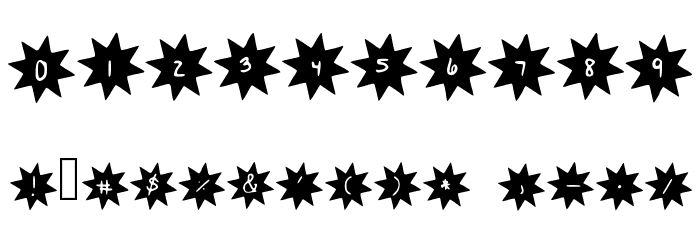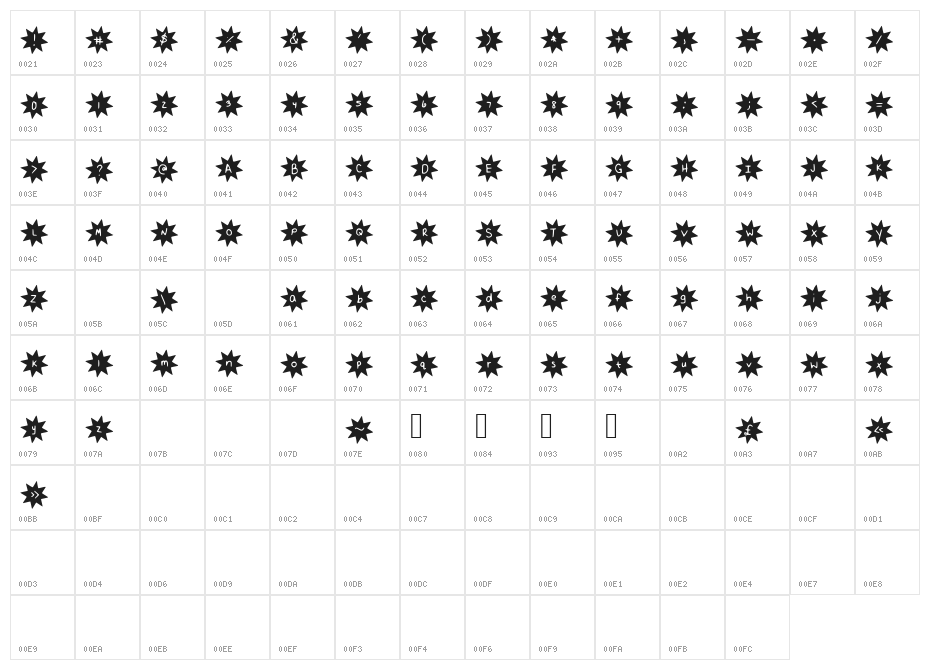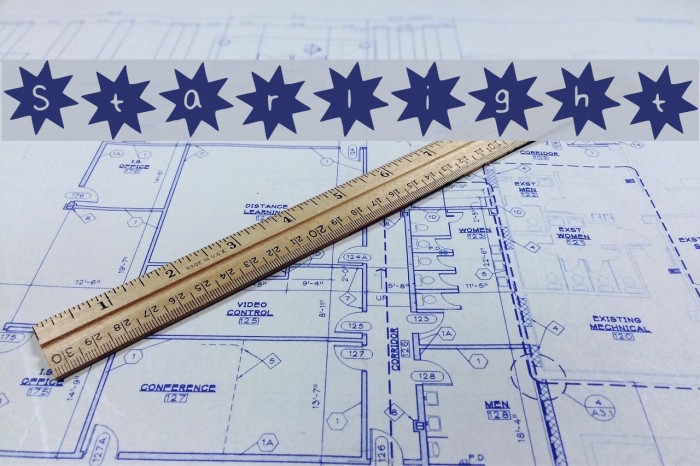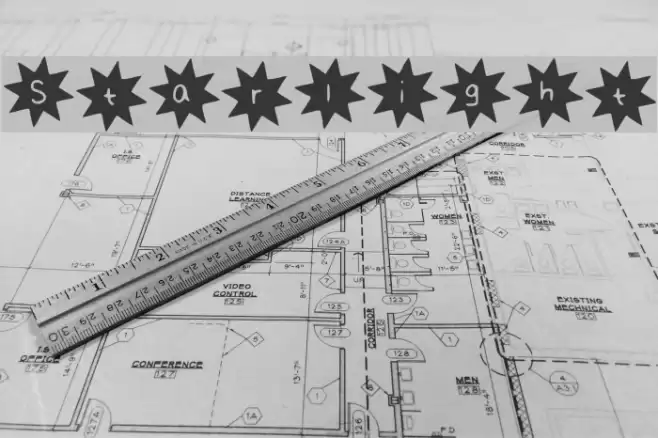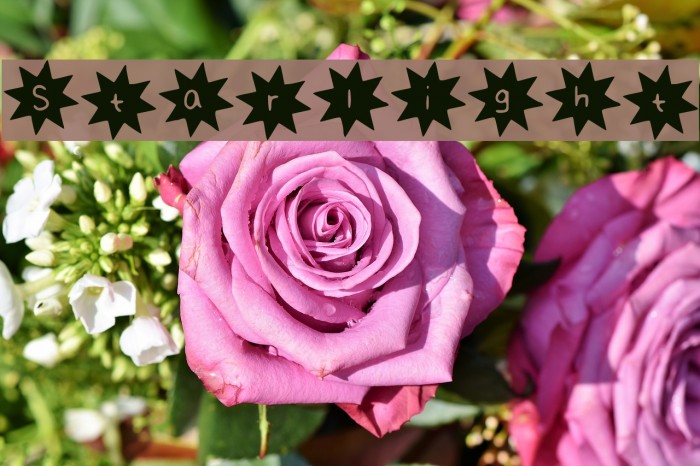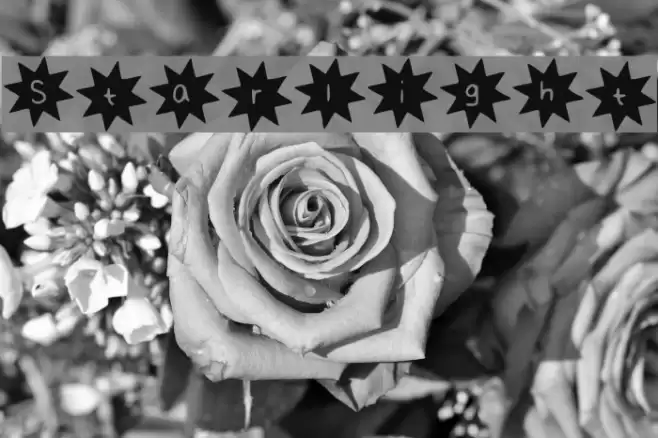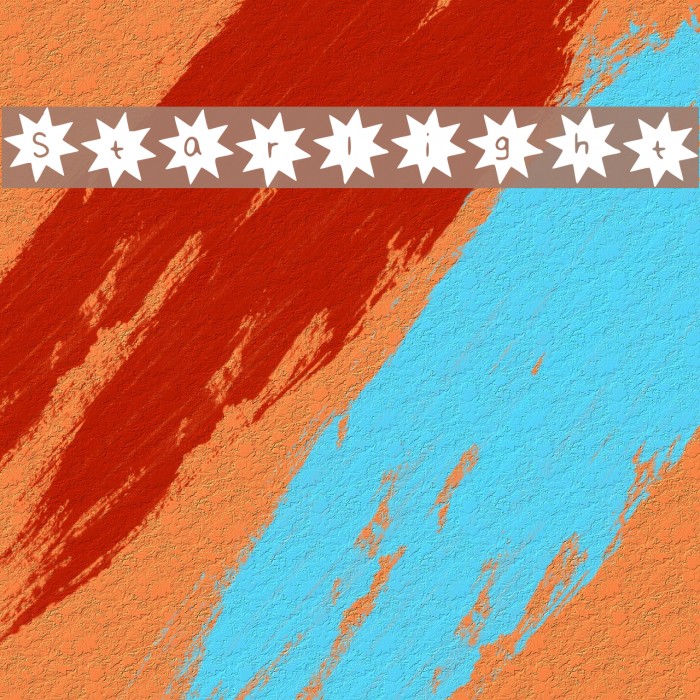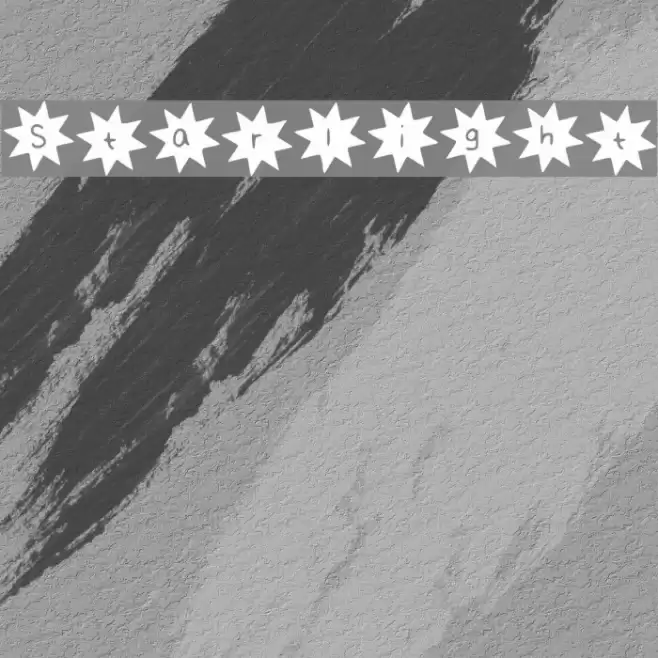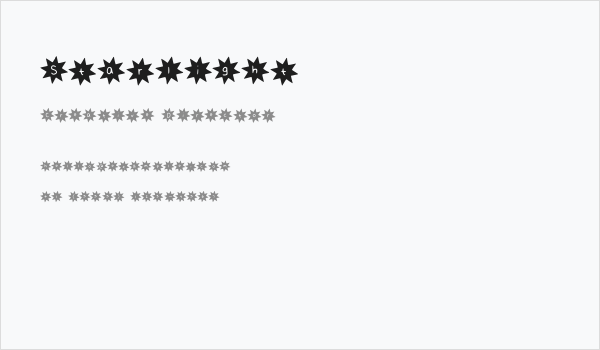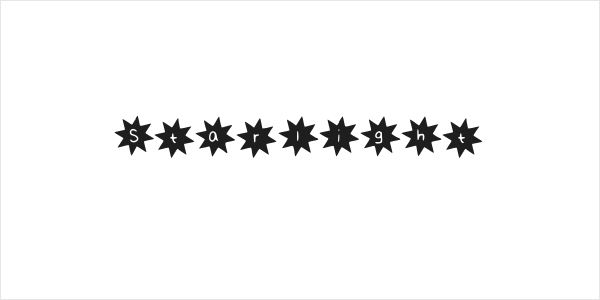
Starlight Font
Starlight Description
This font features a unique and playful design where each character is encapsulated within a starburst shape. The bold, geometric forms create a striking visual impact, making it ideal for attention-grabbing designs. The characters are evenly spaced within their star outlines, ensuring readability despite the decorative nature. The font includes both uppercase and lowercase letters, numbers, and a selection of special characters, all maintaining the starburst motif. Its distinct style is perfect for projects that require a fun and energetic aesthetic.
| Proposed Projects | Ideal for party invitations, children's book covers, festive posters, and playful branding. |